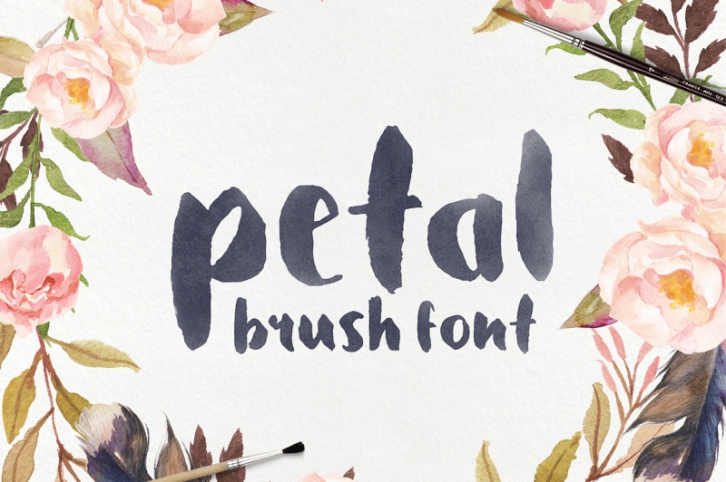
Petal - Brush Font Download
One of my new personal favorites. Petal, covers all latin 1 glyphs and works brilliantly when combined with my new watercolor brush set.